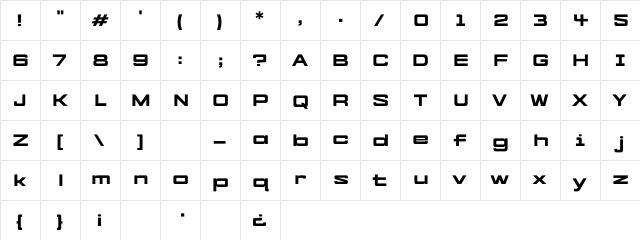
CYBER FREIGHT Normal
| Designer | Jamie Ferrato |
Design Context for CYBER FREIGHT Typeface
CYBER FREIGHT has a distinctly futuristic character, with geometric precision and clean angles that feel at home in technology, gaming, and sci-fi contexts.
Pro Tip: Use CYBER FREIGHT in combination with a neutral sans for body text. Let it define the brand voice in headlines while keeping reading comfortable elsewhere.